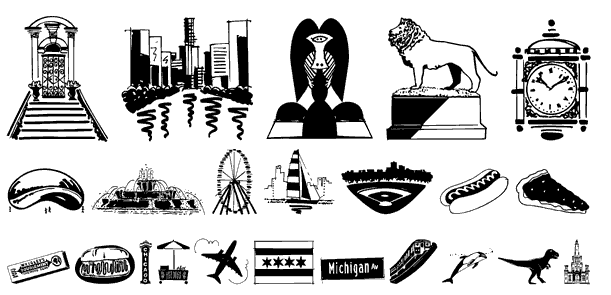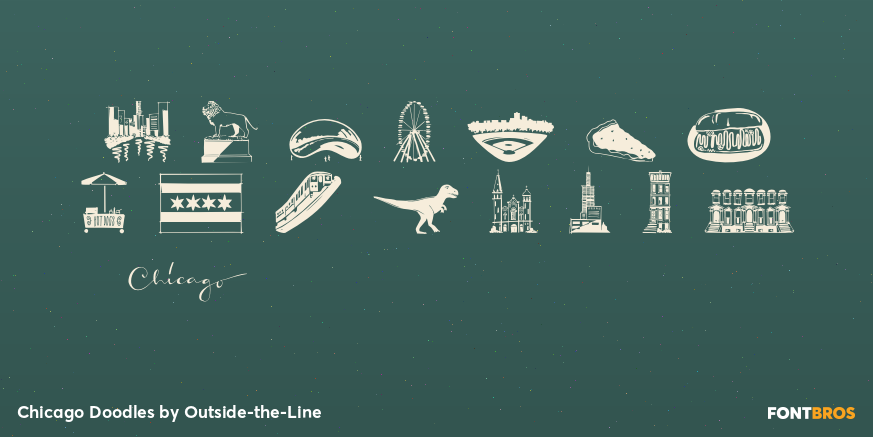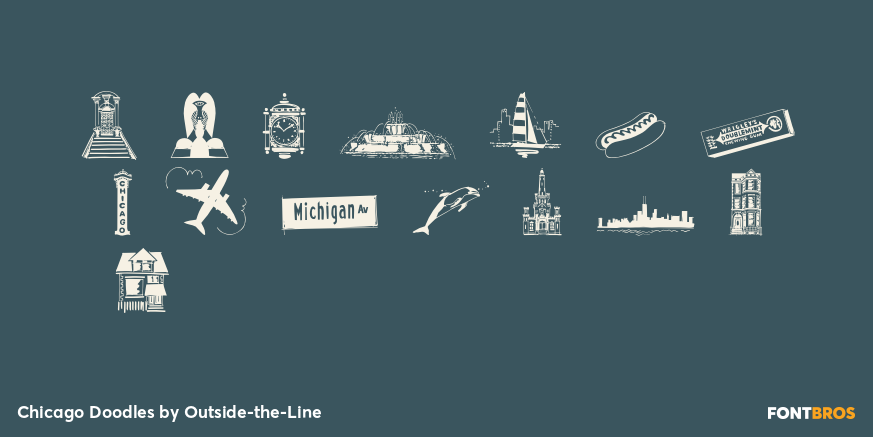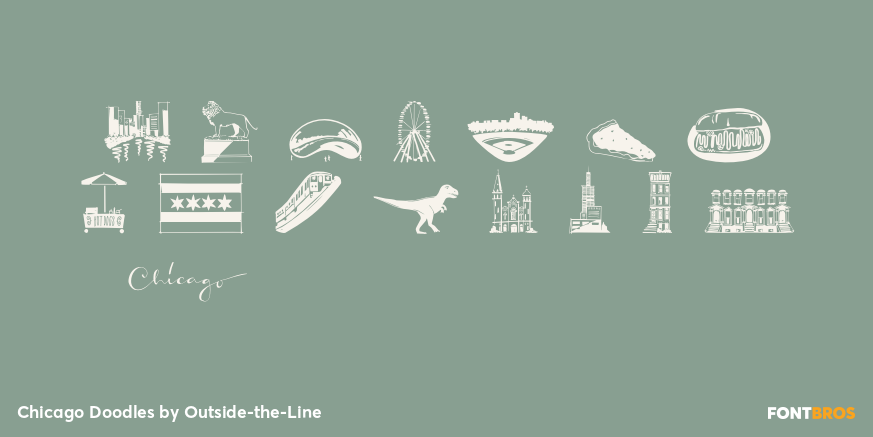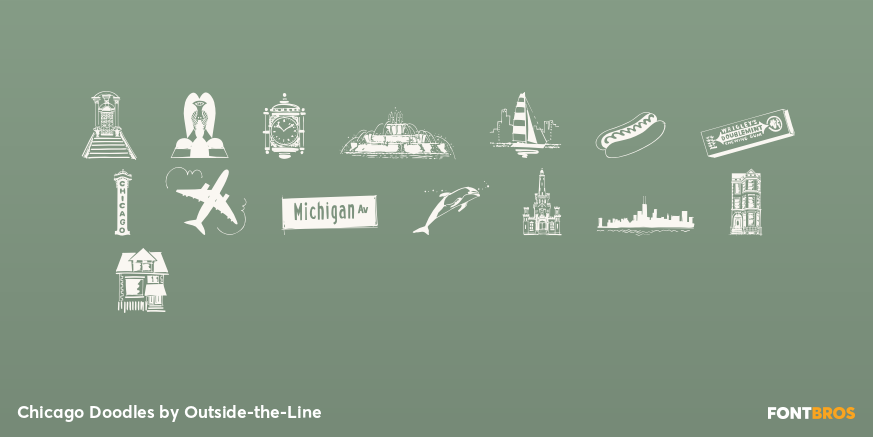
Chicago Doodles
Font Family by Outside-the-Line
Take a little trip to the Windy City with Chicago Doodles. 31 illustrations of buildings, skylines, transportation, food, Chicago landmarks, signs and a script word Chicago.